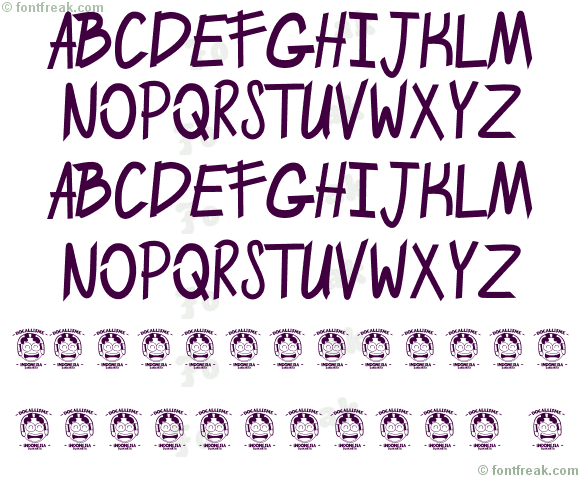
ENJOY BOY
The ENJOY BOY font by Docallisme HAS is a playful and engaging display font that captures attention with its unique character. This font falls under the decorative category, characterized by its bold strokes and whimsical flair. The letters exhibit a hand-drawn quality, giving it an informal and inviting feel. With a moderate stroke weight and minimal contrast, ENJOY BOY maintains legibility while remaining distinctively charming. The playful spacing between the letters adds to its casual aesthetic, making it ideal for various creative applications.
ENJOY BOY is perfect for a range of use cases, including vibrant children's book covers, eye-catching promotional materials for family-friendly events, and stylish merchandise designs such as T-shirts and tote bags. Its lively nature also makes it a great choice for social media graphics aimed at younger audiences, as well as fun branding for cafes or restaurants that focus on a relaxed and friendly atmosphere. The font is particularly suited for graphic designers, small business owners, and content creators looking to add a touch of personality to their projects.
One of the standout features of the ENJOY BOY font is its ability to evoke a sense of joy and playfulness, making it an excellent choice for designs that aim to connect with a youthful audience. By opting for the ENJOY BOY font free download, you can infuse your work with a sense of fun and creativity. Its unique style and versatility ensure that it will not only stand out in any design project but also resonate with viewers, making it a must-have addition to your font collection.